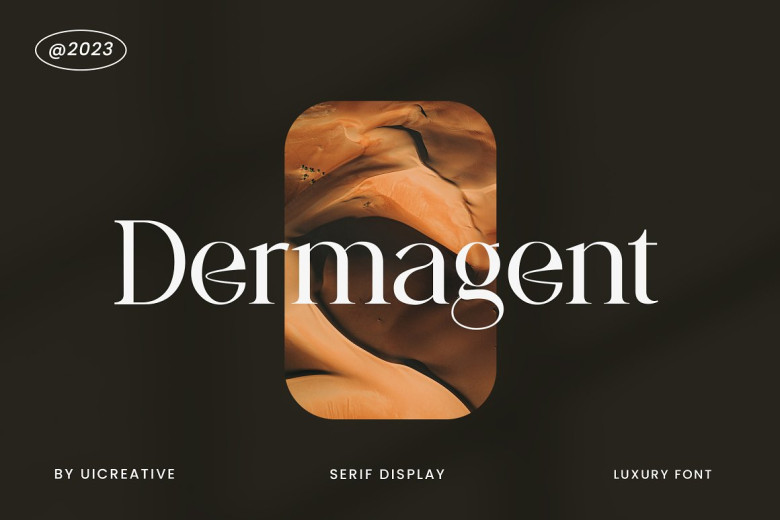
Dermagent Font
Dermagent is a high-class display serif font that feels beautiful, classy, elegant and modern. This font is ideally suited for a wide variety of projects, such as signature, stationery, logo, wedding, typography quotes, magazine or book covers, website headers, clothing and branding, packaging design and more.
Dermagent Serif Font